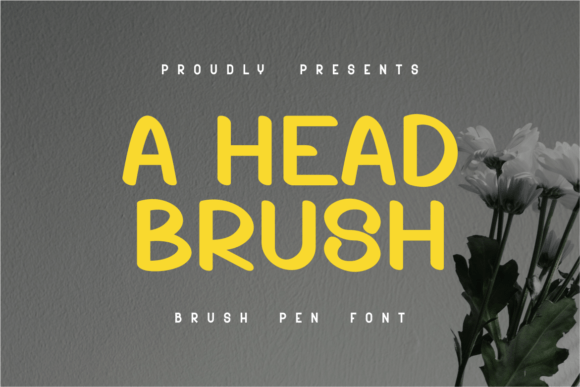
Meet A Head Brush Font, a playful and informal brush display font that sparks creativity and adds a touch of whimsy to your designs. Experience the effortless readability of this font, crafted with care to ensure every character dances across the screen or print, captivating your audience.
A Head Brush Font stands tall among its peers, a true masterpiece in the display font family. Its unique design and versatile nature make it an invaluable asset for any project that seeks to captivate and engage. Whether you're a seasoned designer or just starting, this font will elevate your creations to new heights.
With A Head Brush Font, you can effortlessly create designs that resonate with your audience, leaving a lasting impression. Whether it's a captivating poster, an eye-catching social media post, or a memorable logo, this font has the power to transform your words into works of art.
Embrace the boundless possibilities of A Head Brush Font and unlock your creative potential. Dive into the world of captivating designs, where every stroke tells a story and every letter exudes personality. Let your imagination run wild as you craft designs that dance off the page, leaving your audience spellbound.
So, what are you waiting for? Embark on a creative journey with A Head Brush Font, and let your designs shine brighter than ever before. Experience the joy of effortless readability, captivating aesthetics, and endless creative possibilities. Join the ranks of those who value exceptional design and make A Head Brush Font your go-to choice for any project that demands attention.